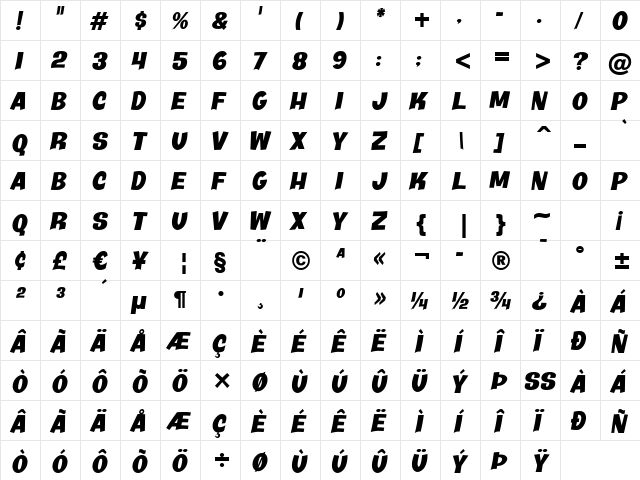
Java Kick BTN BoldOblique Font Preview
Design Context for Java Kick BTN Typeface
Java Kick BTN offers clean, dependable letterforms without strong stylistic allegiance, making it a practical choice for designers who need flexibility. Its italic angle brings a sense of urgency and motion to the letterforms. The heavy weight commands attention and anchors typographic hierarchies.
Pro Tip: Try Java Kick BTN for annotation and caption copy alongside an upright companion — the contrast in angle creates a dynamic but ordered typographic system.